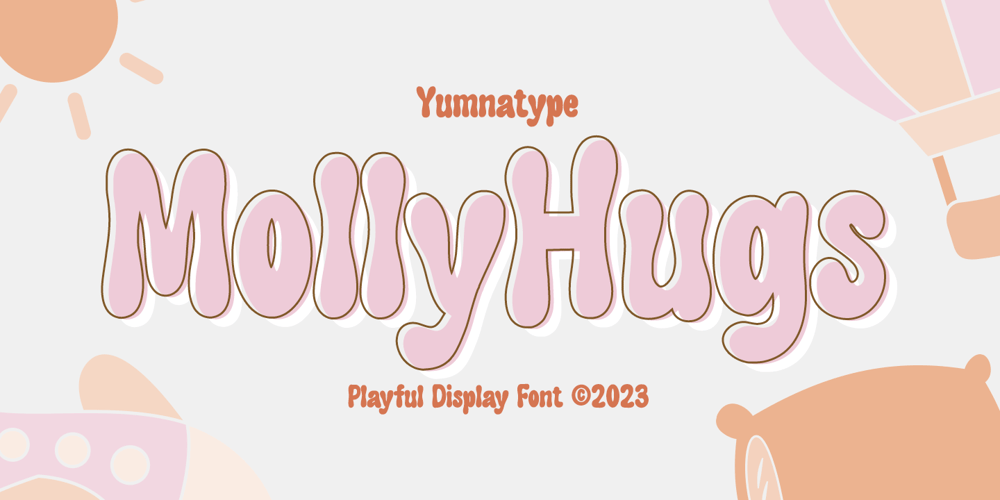
Molly Hugs
Molly Hugs font
Molly Hugs Font Family was designed by Donis Miftahudin and published by Yumna Type. Molly Hugs contains 2 styles and family package options. Finding out an attractive font regarding your project design can be such hard work as you take risks of either losing your clients or killing your good reputations once you pick the wrong font. However, Molly Hugs is the right solution for you. It is a rounded display font to add warm, fun character touches on every design. Its shapes and geometry are simple and without too many detailed points for a legibility reason. Additionally, Molly Hugs, completed with a clipart as a bonus, is perfectly applied for big text sizes to be legible and you can make use of some available features here.Features: Multilingual Supports PUA Encoded Numerals and Punctuations Molly Hugs fits best for various design projects, such as brandings, posters, banners, headings, magazine covers, quotes, printed products, merchandise, social media, etc. Find out more ways to use this font by taking a look at the font preview.Thanks for purchasing our fonts. Hopefully, you have a great time using our font. Feel free to contact us anytime for further information or when you have trouble with the font. Thanks a lot and happy designing.